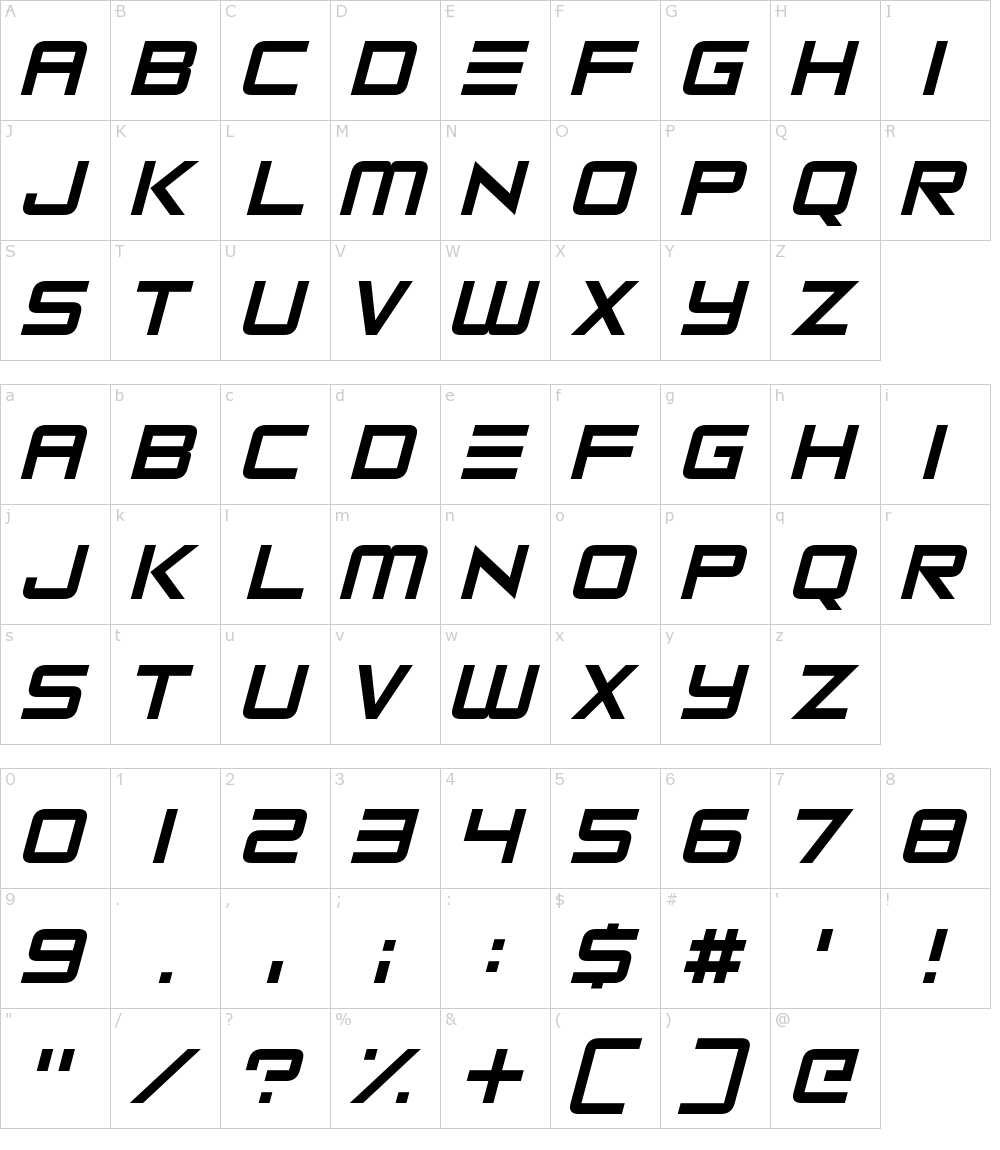
At The Same Time, The Font Features Friendly And Open Curves.
You get these fonts with uppercase characters and numbers to design your desired print. It includes uppercase letters, numbers and punctuation. The computer robot font has been downloaded 42,514 times.